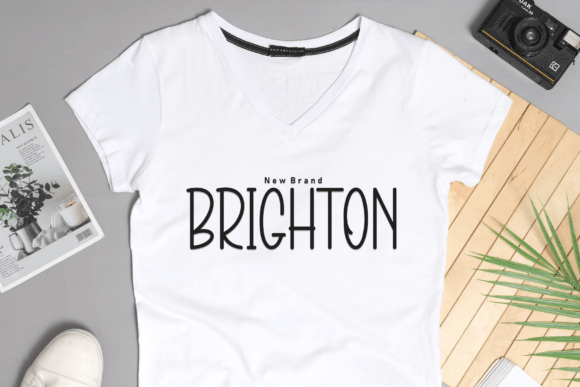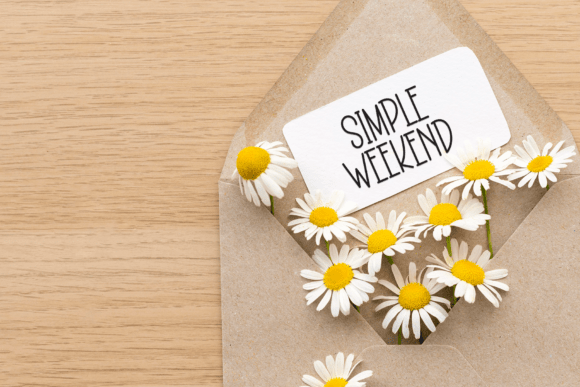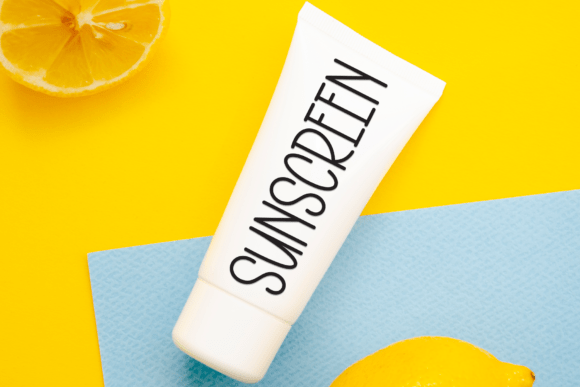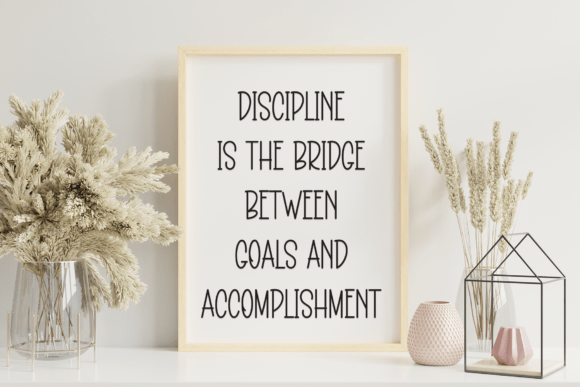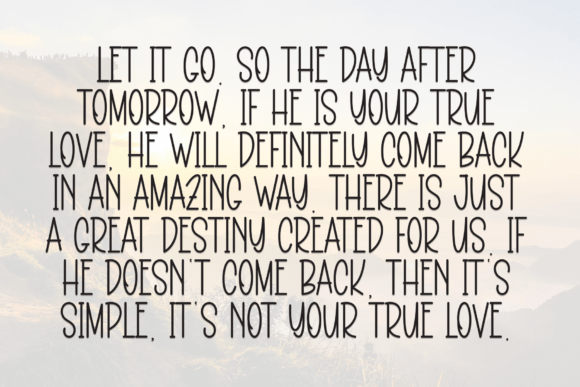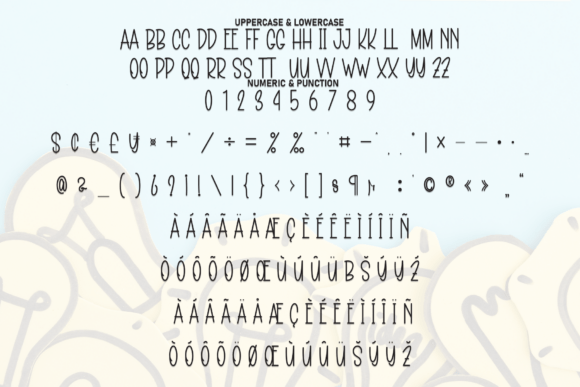
Introduction to Creative Forever Font
As a designer, have you ever found yourself staring at a blank canvas, trying to bring a creative project to life? The perfect font can make all the difference. For me, it’s the moment when the words start flowing, and the design begins to take shape. It’s a feeling of excitement and anticipation, knowing that the right font can elevate the entire project.
Enter the Creative Forever Font – a game-changer for designers looking for a high-quality, modern font that exudes a relaxed, approachable vibe. This free download is perfect for designers seeking a design resource that balances style and readability. With its clean lines and friendly letterforms, the Creative Forever Font is ideal for headlines, posters, packaging, and branding that requires a touch of creativity.
Key Features of Creative Forever Font
• High-quality design resource ideal for creative projects
• Unique, hand-drawn style with a transparent background for easy customization
• Perfect for designers and artists looking for a creative font to enhance their designs
• Great for use in logos, branding, and other creative projects where a unique font is desired
Honest Review: Creative Forever Font
As a designer, I’m always on the lookout for high-quality design resources to elevate my creative projects. Recently, I had the chance to work with the Creative Forever Font, and I’m excited to share my honest review with you.
• High-quality design: The Creative Forever Font has a crisp and clean appearance that makes it perfect for a variety of creative projects.
• Transparent background: The transparent background of the font makes it easy to combine with other design elements.
• Limited font styles: While the Creative Forever Font is well-designed, it only comes in a few styles, which may limit its versatility for certain projects.
Overall, I think the Creative Forever Font is a great addition to any designer’s toolkit. While it has some limitations, its high-quality design and free download make it a valuable resource for creative projects.
The Creative Forever Font is a high-quality design resource perfect for creative projects. With its unique and stylish design, it’s ideal for any project that requires a touch of elegance. You can download it for free and use it in a variety of platforms.
To get the most out of the Creative Forever Font, use it with a transparent background to give it a clean and elegant look. You can also use it in combination with other design elements to create a unique and eye-catching design.
The Creative Forever Font is perfect for creative projects such as:
• Wedding invitations
• Business cards
• Posters
• Brochures